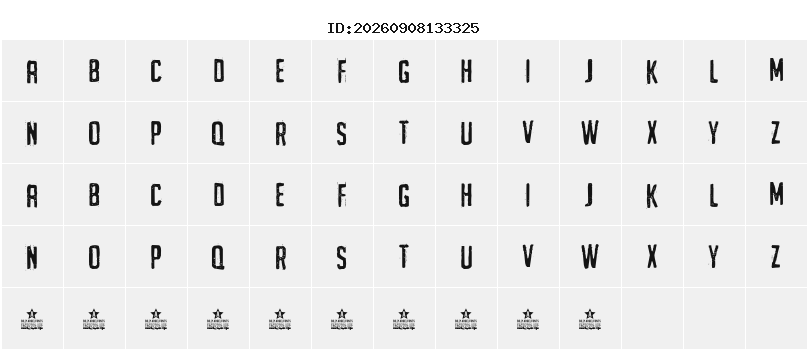
• Font Name: URGH TYPE PERSONAL USE
• Designer: BILLY ARGEL
About URGH TYPE PERSONAL USE.otf
URGH TYPE PERSONAL USE.otf is a modern, elegant sans-serif font designed for ultimate readability and visual harmony. Perfect for branding, headlines, web design, and print materials.